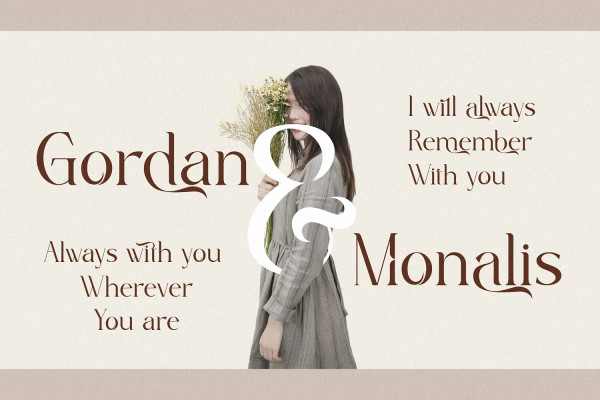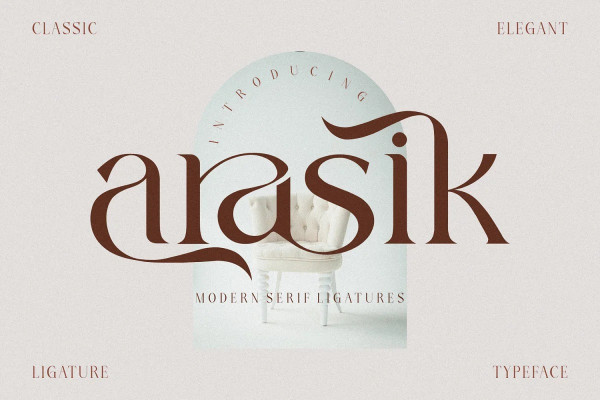
Arasik Font
Arasik Font  modern serif ligatures. A very modern and elegant serif font with lots of ligatures and letter alternatives making it perfect for your projects.